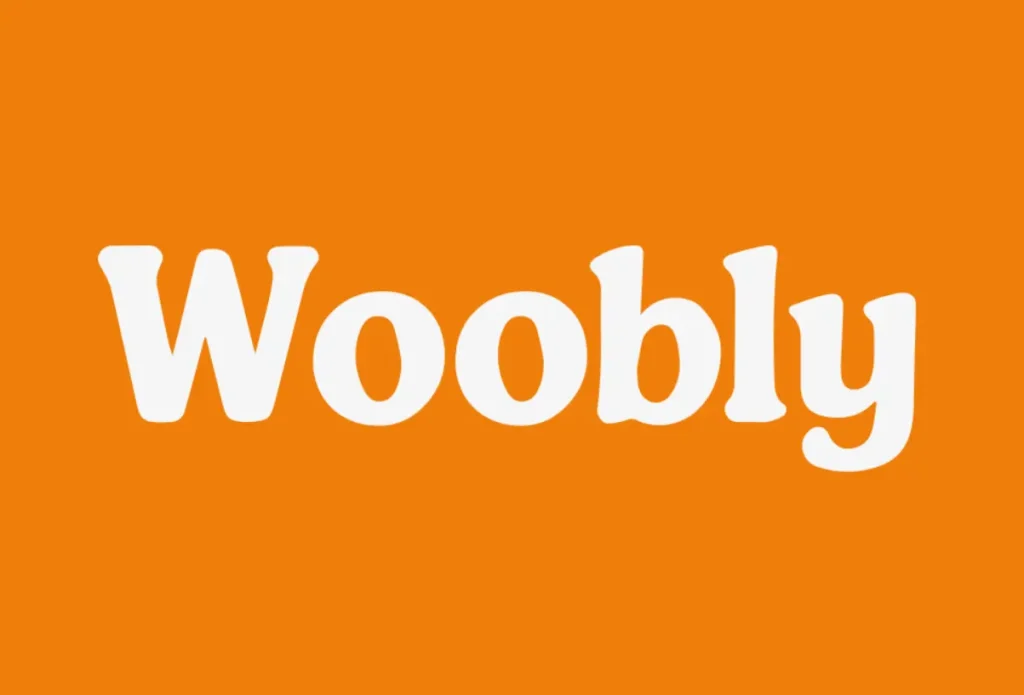
If your design project needs a dose of cheer, Woobly might be the font for you.
Woobly is a free display font that offers a bold, cheerful character.
Its rounded, bouncy forms inject warmth and friendliness into various creative applications.
Features
- Bold and distinctive letterforms
- Soft, rounded curves throughout
- A playful and cheerful aesthetic
- Clear legibility for display purposes
Use Cases
- Create welcoming branding for children’s products or services.
- Design attention-grabbing headlines for websites, posters, or flyers.
- Develop social media graphics that require a warm, friendly tone.
- Craft invitations for parties, showers, or other fun events.
- Build logos that need a memorable, approachable, and slightly whimsical look.